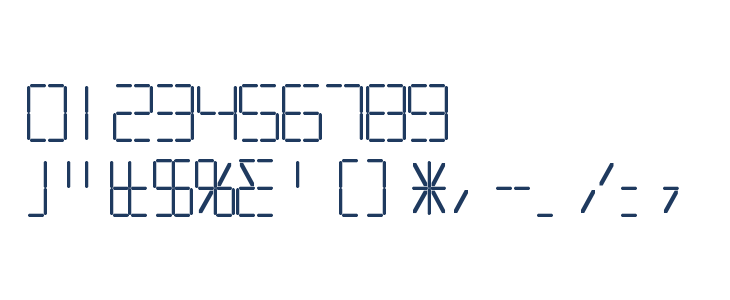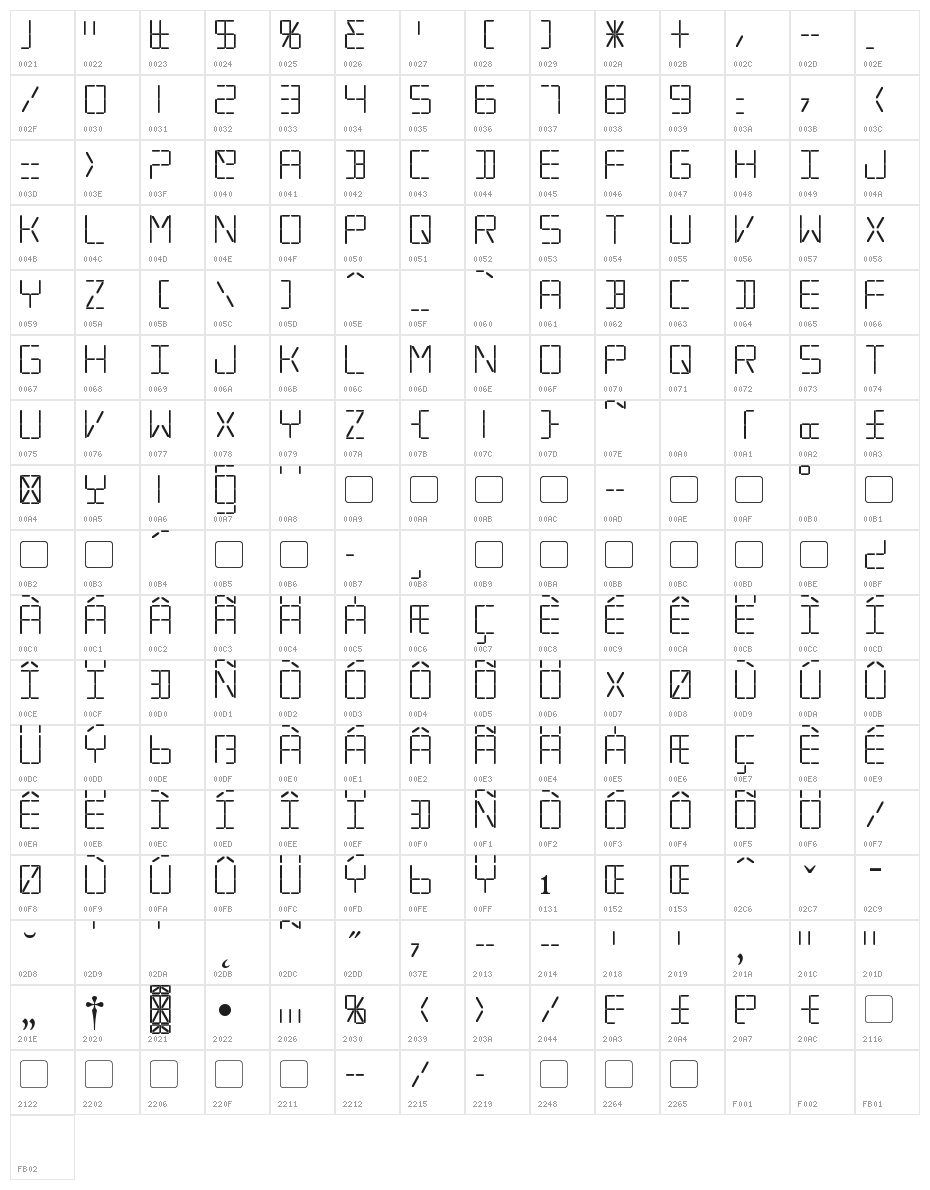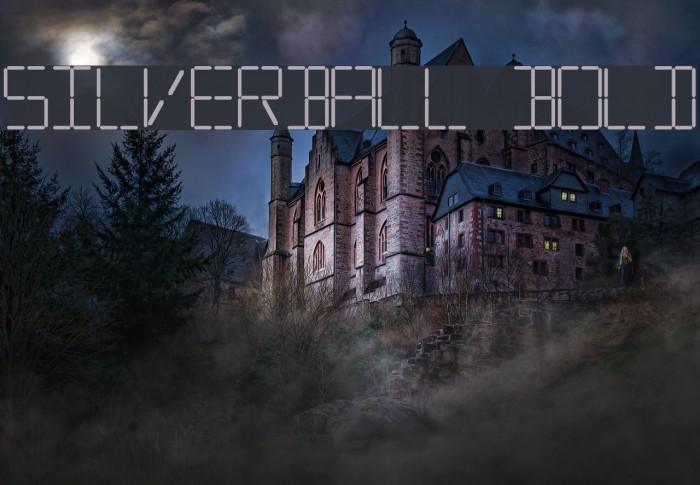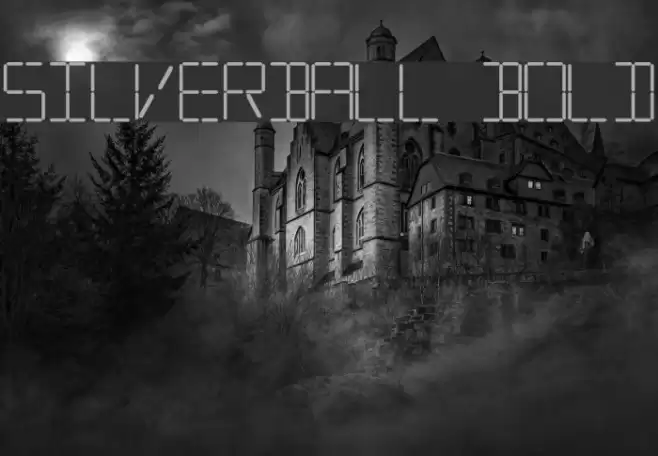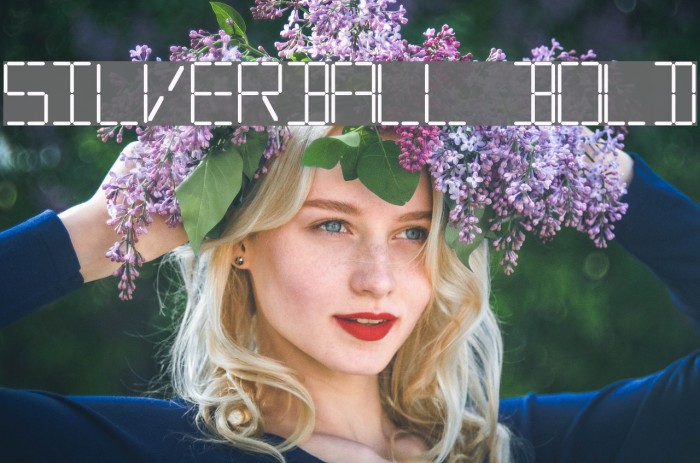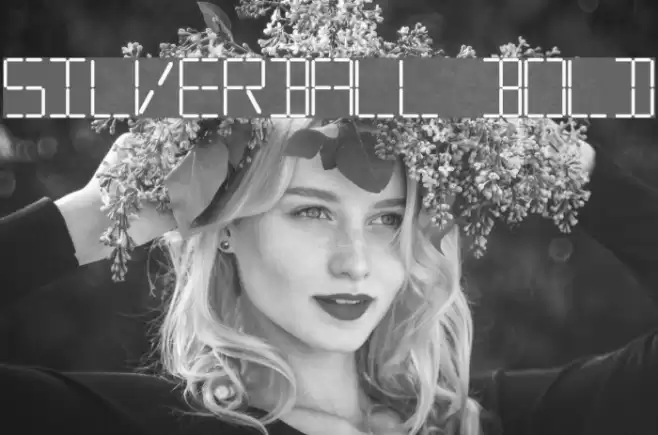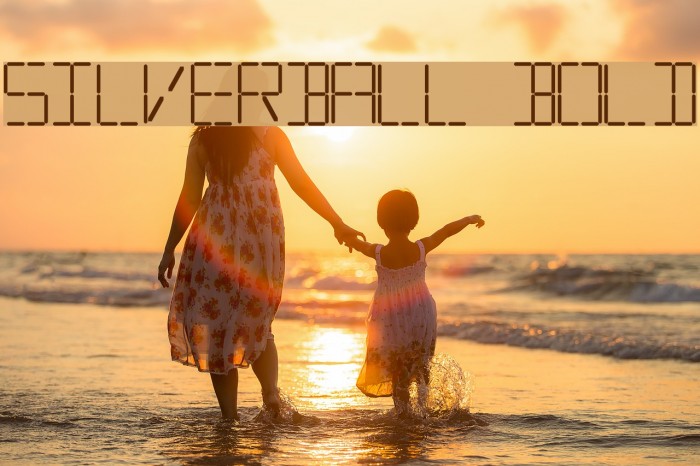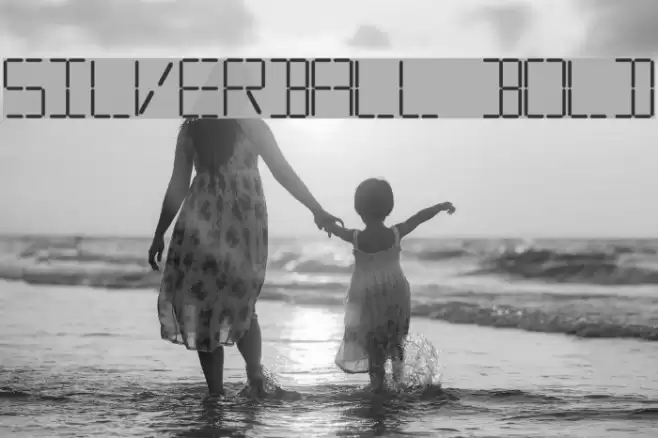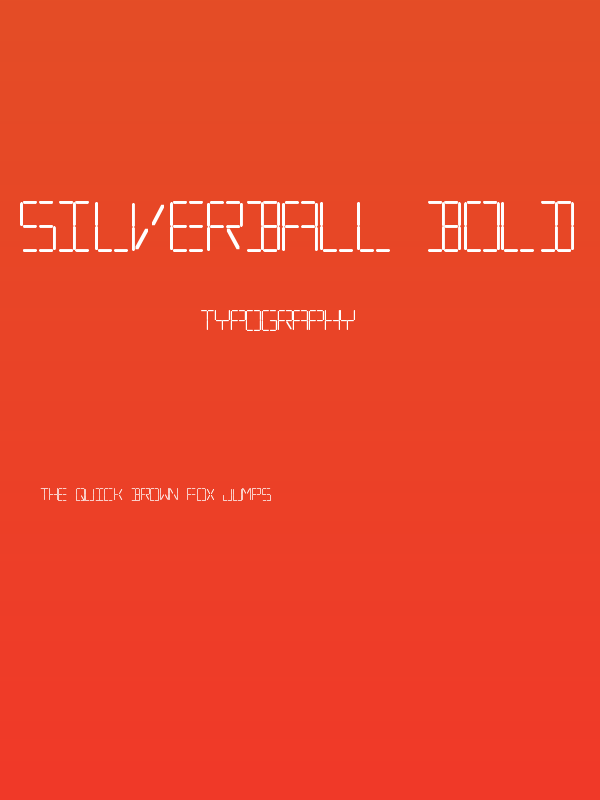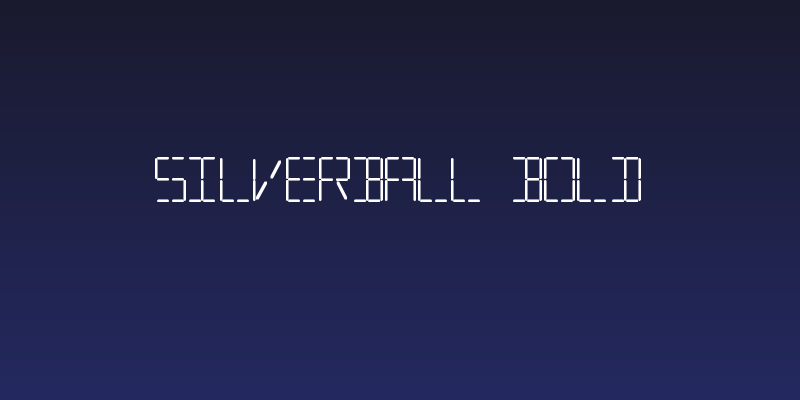
Silverball Bold Font
Silverball Bold Description
This font features a unique, futuristic design with a digital, segmented appearance reminiscent of LED displays. Each character is composed of distinct, block-like segments that create a geometric and technical aesthetic. The uppercase and lowercase letters maintain a consistent style, with sharp angles and straight lines, giving the font a cohesive and modern look. The numerals and special characters follow the same segmented pattern, ensuring uniformity across all glyphs. This font's design is both bold and eye-catching, making it suitable for projects that require a technological or digital theme.
| Proposed Projects | Ideal for digital interfaces, tech-themed posters, video game graphics, and futuristic branding. |